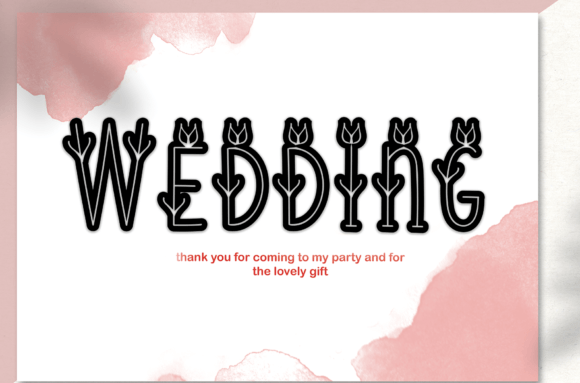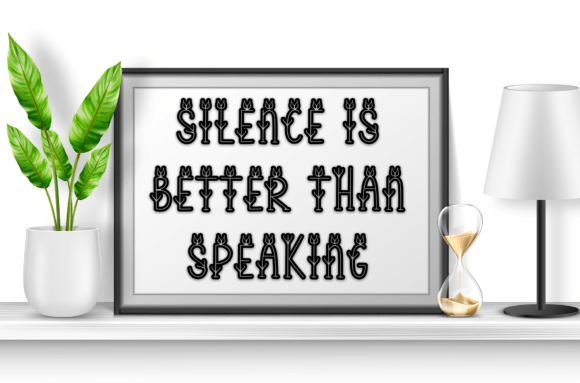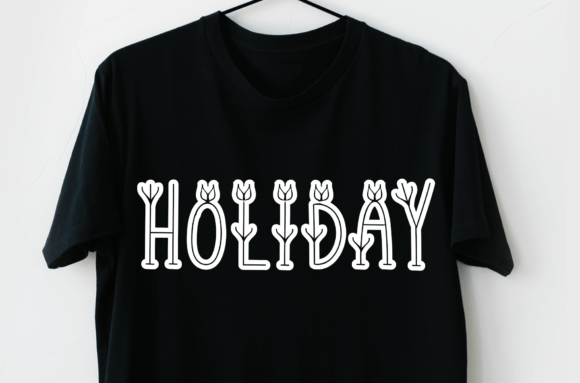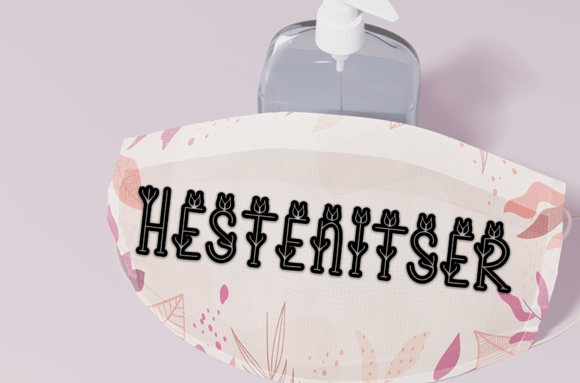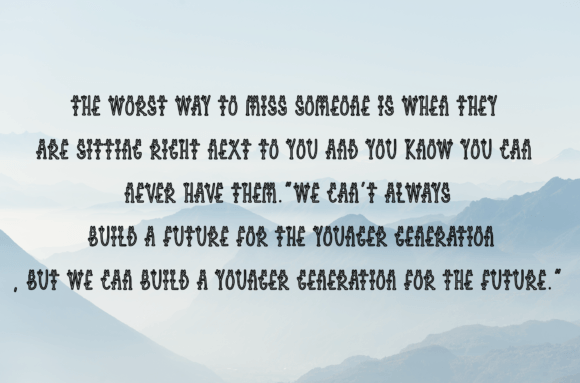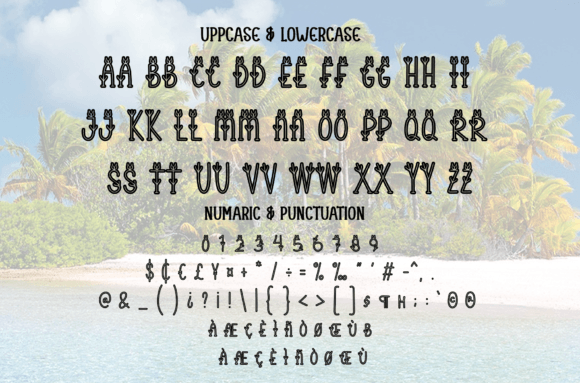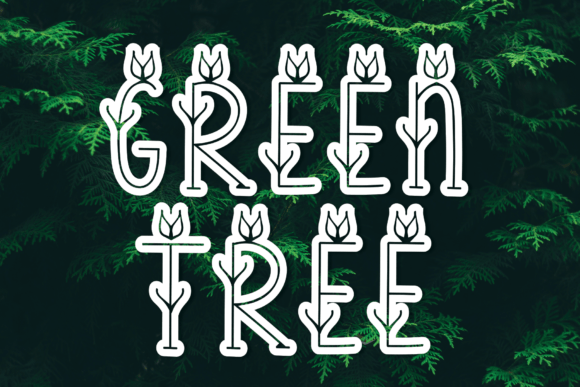
The Quest for the Perfect Font: Discovering Green Tree Font
I’ll never forget the time I was working on a wedding invitation project, and I just couldn’t seem to find the right font. My client wanted something sweet, friendly, and playful, but not too over-the-top. I scoured the internet, tried out dozens of fonts, and still, nothing seemed quite right. That was until I stumbled upon Green Tree Font. 💕
Green Tea, as it’s also known, is a beautiful handwritten display font that has become a staple in my design toolkit. Its unique blend of playfulness and elegance makes it perfect for a wide range of projects, from wedding invitations and cards to social media graphics and more.
An Honest Review: What I Love (and What to Watch Out For) 🤔
The Good: ✨
- ✅ Sweet and Friendly Vibe: Green Tree Font has a warm, inviting feel that’s perfect for creating designs that feel approachable and personal.
- ✅ Highly Versatile: Whether you’re working on a wedding invitation, a social media graphic, or a craft project, this font adapts beautifully to different contexts.
- ✅ Elegant yet Playful: The font strikes a great balance between sophistication and whimsy, making it suitable for a wide range of design applications.
The Not-So-Good: ⚠️
- ⚠️ Limited Use in Body Text: While Green Tree Font is stunning as a display font, it may not be the best choice for longer body text due to its decorative nature.
- ⚠️ Some Letter Combinations May Be a Bit Quirky: As with any handwritten font, certain letter combinations might not flow as smoothly as you’d like, requiring a bit of manual adjustment.
Exploring OpenType Features and Glyphs 🔍
One of the joys of Green Tree Font is its support for OpenType features, which can add an extra layer of creativity to your designs. Here are a few tips on how to access these features:
The Story Behind Green Tree Font 🌸
Green Tree Font was inspired by the beauty of nature and the simplicity of handwritten scripts. Its creator aimed to craft a font that felt both modern and timeless, with a friendly demeanor that could bring joy to a variety of design projects. Whether used for a wedding invitation, a DIY craft, or a professional design, Green Tree Font is designed to add a touch of warmth and personality.
Q: Is Green Tree Font suitable for body text? 🤔
A: While Green Tree Font is stunning as a display font, it’s not ideal for longer body text due to its decorative nature. For body text, consider using a clearer, more readable font.
Q: Is Green Tree Font available in different weights or styles? 💪
A: The availability of different weights or styles depends on the font package. Some versions of Green Tree Font may offer variations, while others may be a single-weight font.